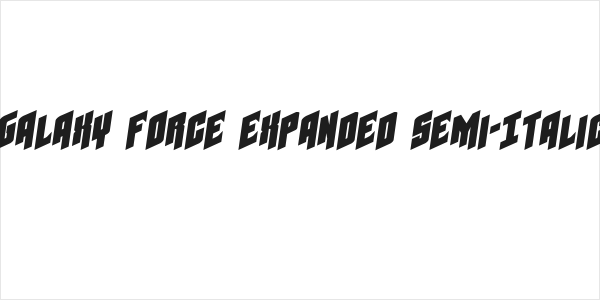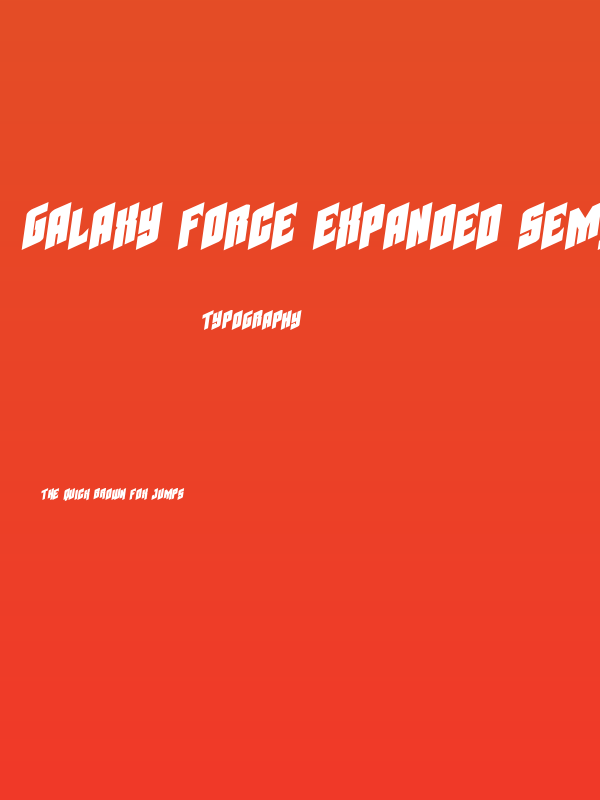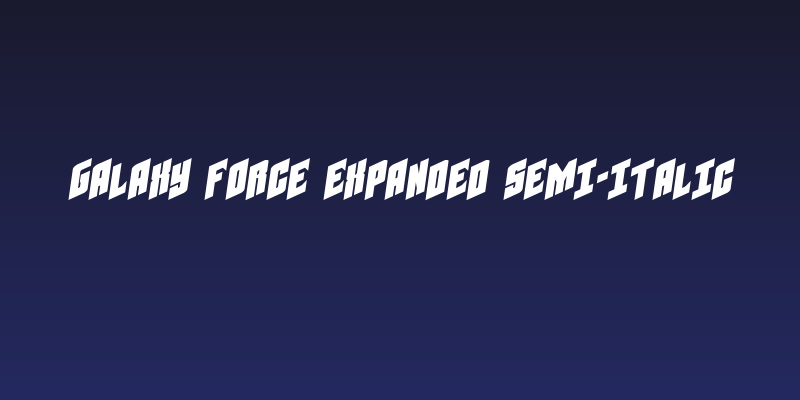
Galaxy Force Expanded Semi-Italic Font
Galaxy Force Expanded Semi-Italic Description
This font features a bold and dynamic design with a futuristic flair. The characters are sharply angled, giving them a sense of motion and energy. The expanded width and semi-italic style contribute to its unique appearance, making it stand out in any design. The uppercase and lowercase letters maintain a consistent style, while the numerals and special characters complement the overall aesthetic. This font is ideal for projects that require a strong, impactful presence.
| Proposed Projects | Perfect for sci-fi themed posters, video game titles, and dynamic branding projects. |